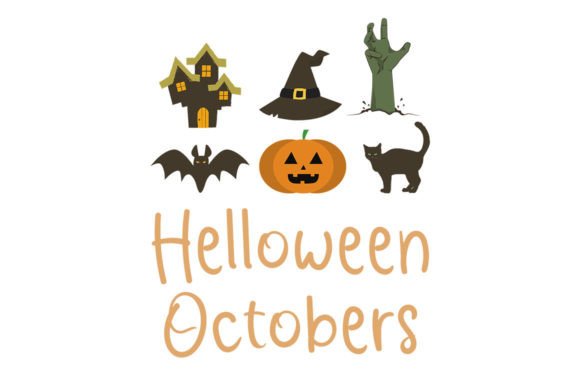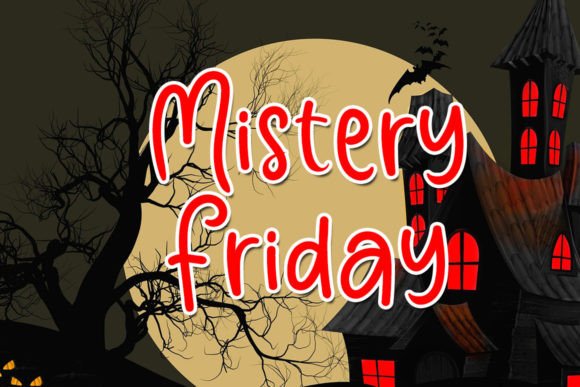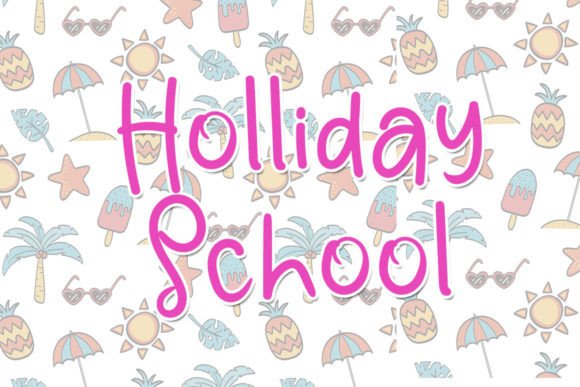
Introduction to Pumpkin Saturday Font
Pumpkin Saturday is a beautiful and sweet handwritten font.
It is fresh, clean, and elegant This font will look amazing in a great number of projects, both formal and informal.
Key Features of Pumpkin Saturday Font
Why Choose Pumpkin Saturday Font?
Pumpkin Saturday Font offers exceptional quality and versatility, making it a valuable addition to your design toolkit. Whether you’re creating for personal projects or commercial use, Pumpkin Saturday Font delivers professional results.